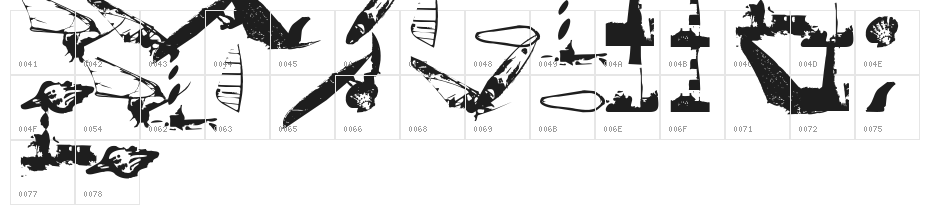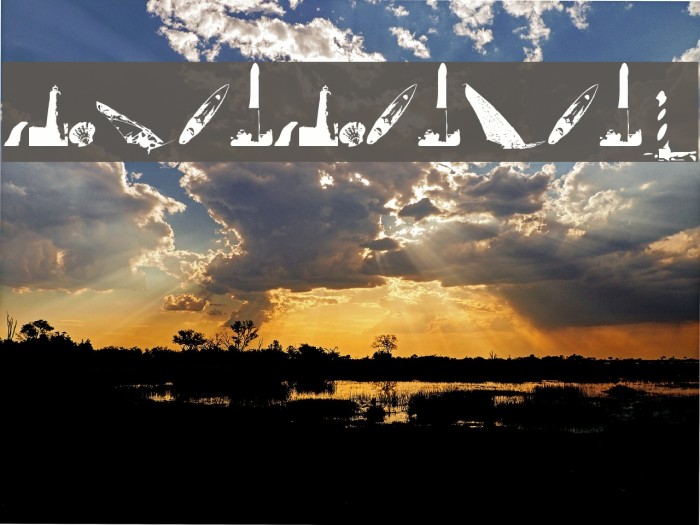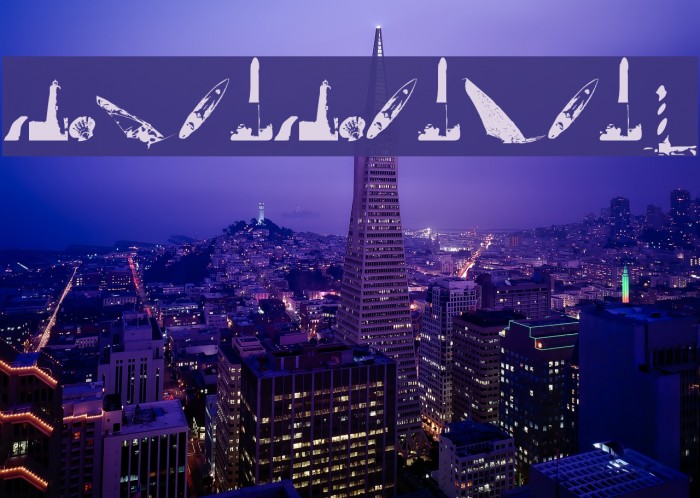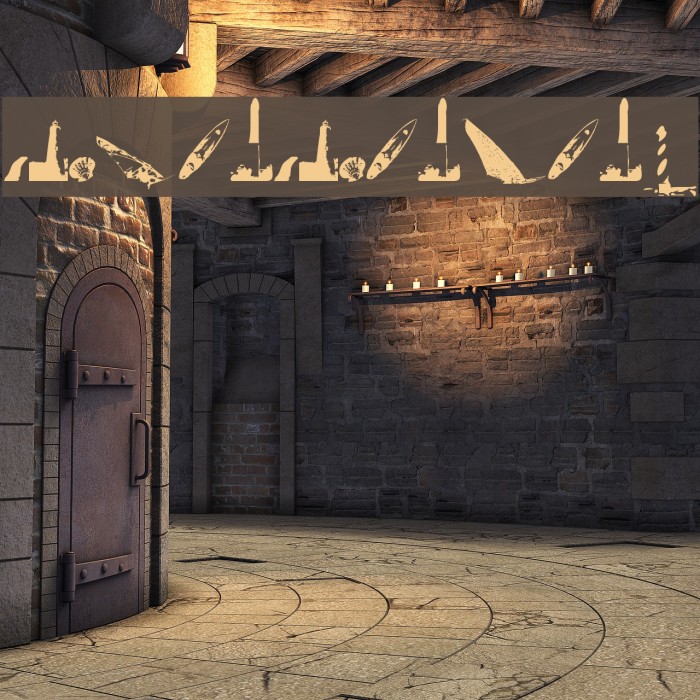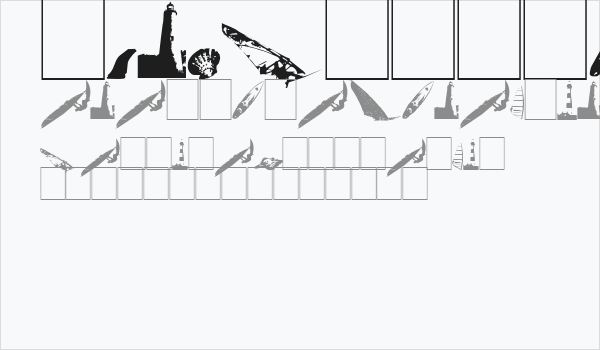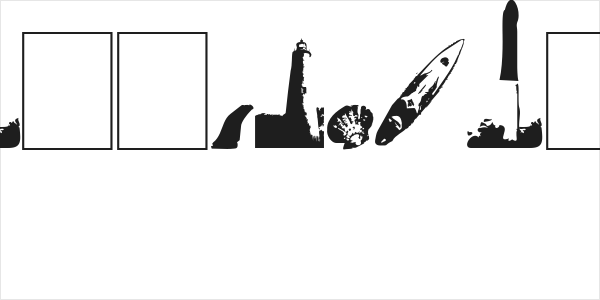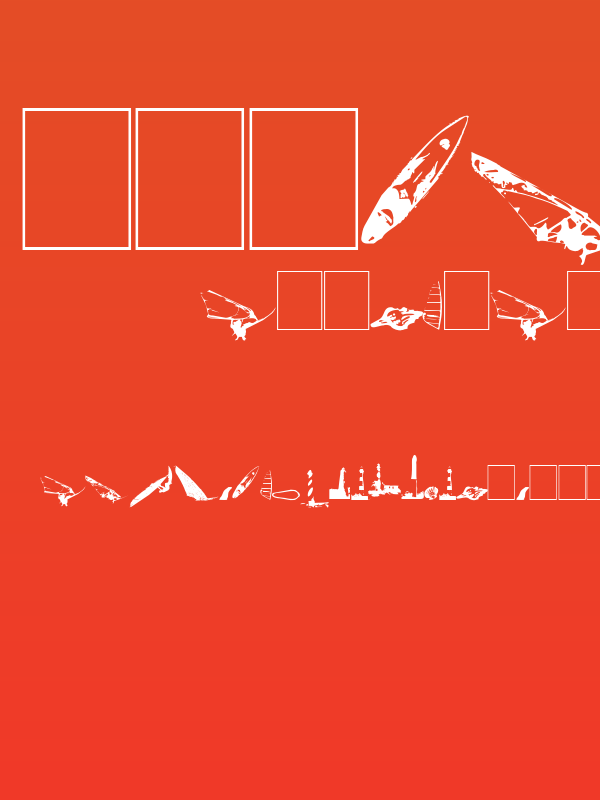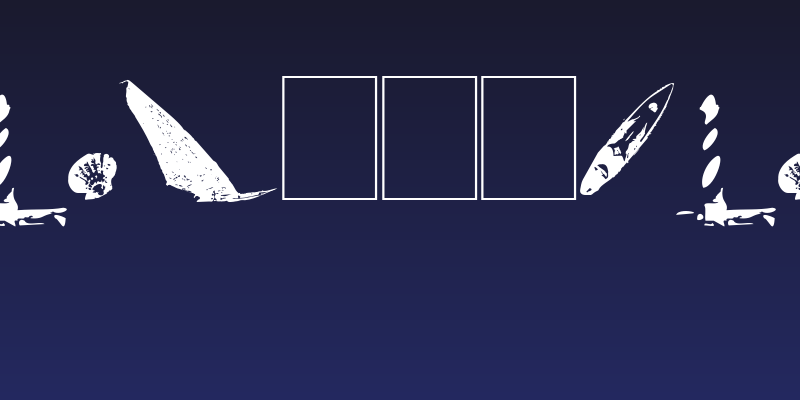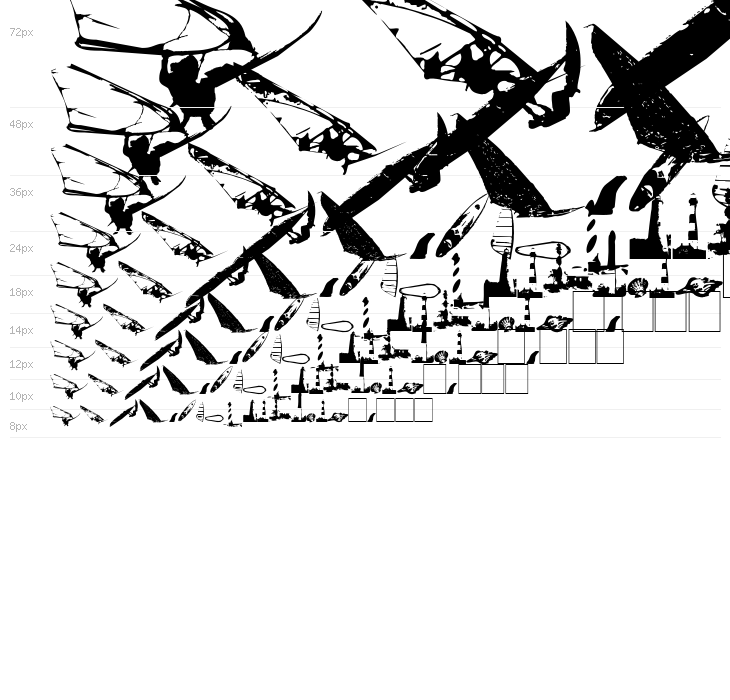
Surf Bat [Windsurfing Dingbats] Font
Surf Bat [Windsurfing Dingbats] Description
This collection of dingbats features a variety of windsurfing and coastal-themed silhouettes. The designs include dynamic images of windsurfers in action, surfboards, and coastal landmarks like lighthouses. Each symbol is rendered with a high level of detail, capturing the essence of the seaside and the thrill of windsurfing. The style is bold and graphic, making it suitable for projects that require a strong visual impact. The imagery is consistent throughout, offering a cohesive set of symbols that can be used to enhance designs related to water sports, beach activities, or nautical themes.
| Use Case | Logos, Posters, Merchandise |
| Proposed Projects | Ideal for designing sports event posters, beach-themed merchandise, or nautical-themed branding materials. |